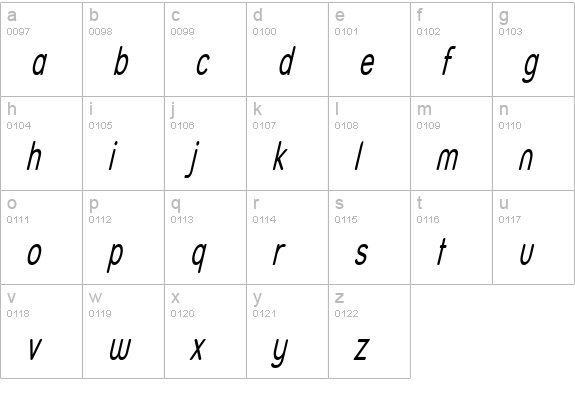
Street - Thin Italic Font Details
Street - Thin Italic is a delicate, low-contrast, italic variant in the Street typeface family \xE2\x80\x94 well suited to fashion editorial, minimal branding, and high-contrast display.
Street - Thin Italic is a sleek and modern font that exudes sophistication and elegance. With its slim and stylish design, this typeface is perfect for creating a contemporary and refined look in your projects. The thin italicized style adds a touch of flair and sophistication, making it ideal for fashion, beauty, or luxury branding. Best of all, this font is available for free download at FontsMarket.com. Whether you're working on a website, advertisement, or print design, Street - Thin Italic will add a touch of class and sophistication to your projects. Don't miss out on this opportunity to elevate your designs with this beautiful typeface.